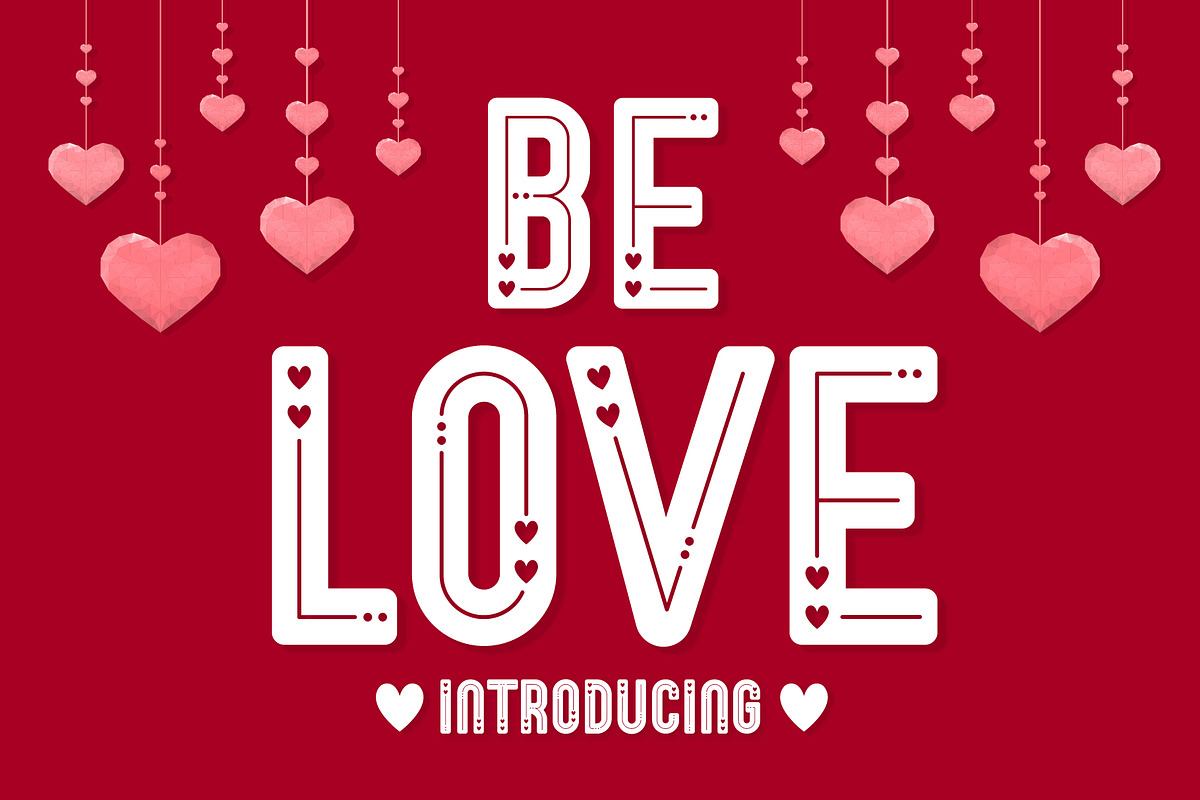
Be Love Decorative Font Free Download
Please note, to use this font for commercial purposes, you must purchase the full version. Be Love is a unique and decorative font that combines elegant letterforms with a playful, creative touch. Perfect for logos, invitations, branding, and creative projects, this font adds a stylish and artistic flair to any design. Whether you're working on a romantic project, a special event invitation, or a whimsical logo, Be Love brings personality and charm to your work. Test it out and enjoy free download access for personal use. Experience the artistic beauty of Be Love Decorative Font Free Download before purchasing the commercial license. Add a decorative, loving touch to your designs with Be Love.